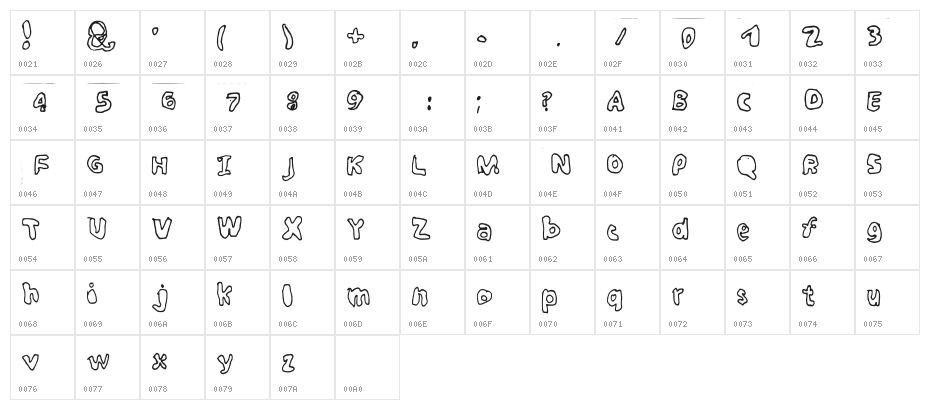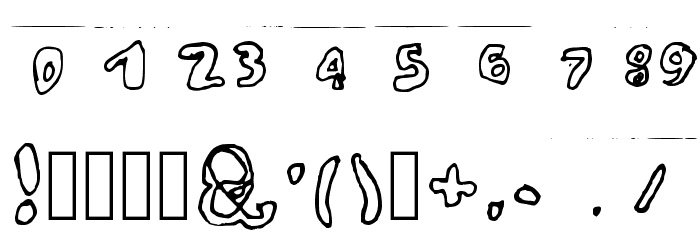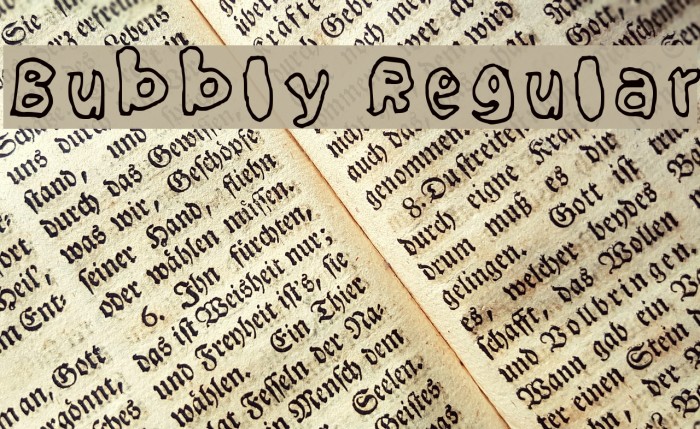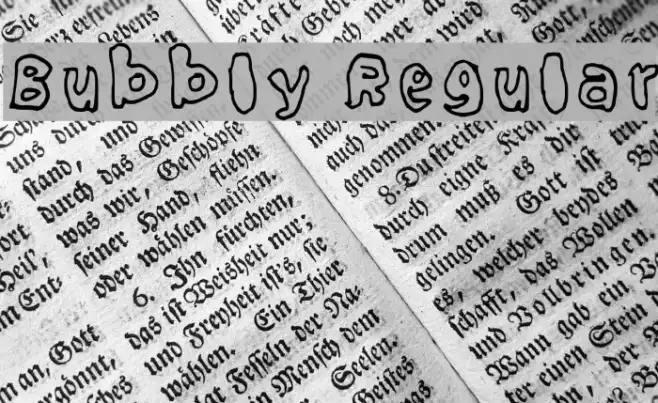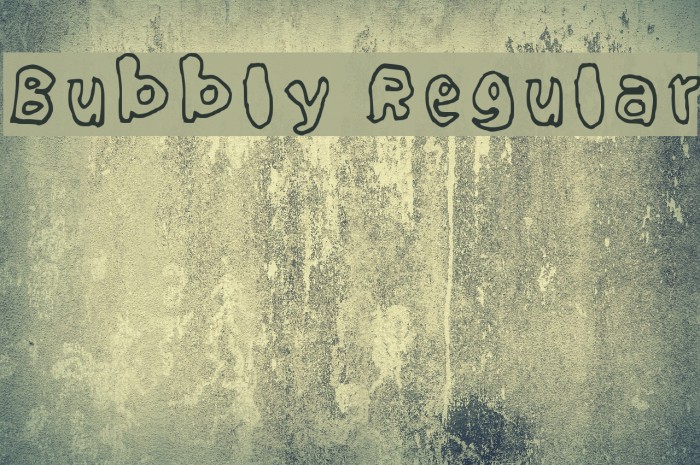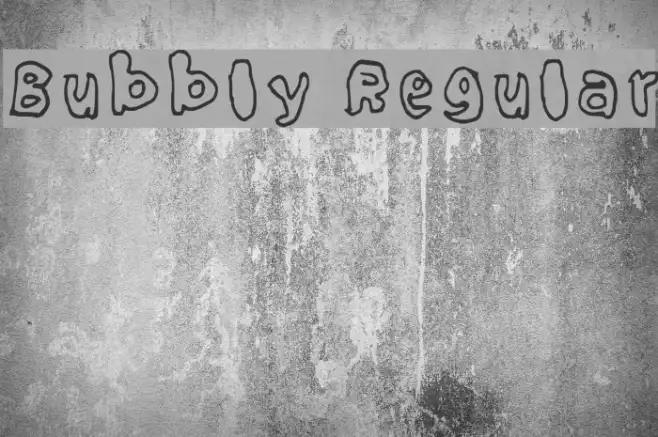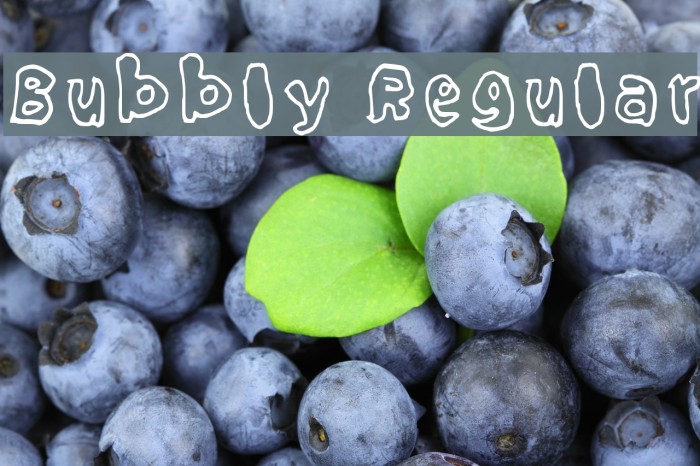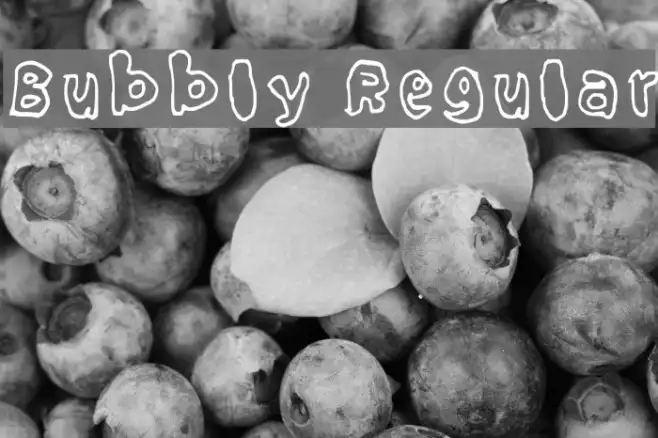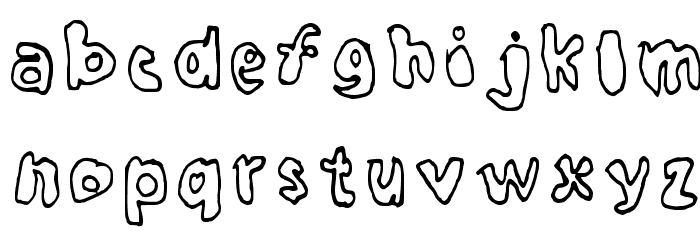
Bubbly Regular Font
Bubbly Regular Description
This playful and whimsical font features a bubbly, hand-drawn style with a casual and friendly appearance. Each character is outlined with a bold, uneven stroke, giving it a lively and dynamic feel. The letters are slightly irregular, adding to the font's charm and making it perfect for informal and fun designs. The uppercase and lowercase letters maintain a consistent style, with rounded edges and a sense of movement. Numbers and special characters are included, matching the overall playful theme. This font is ideal for projects that require a touch of creativity and lightheartedness.
| Proposed Projects | Ideal for children's books, greeting cards, playful branding, and creative posters. |